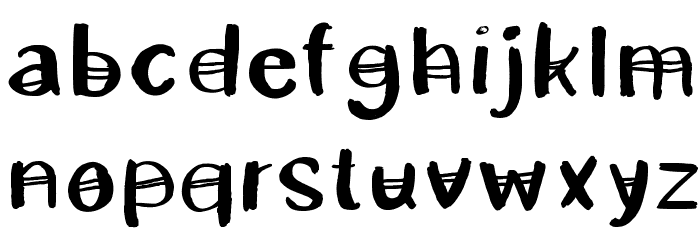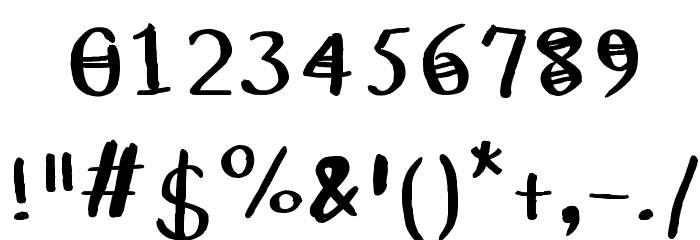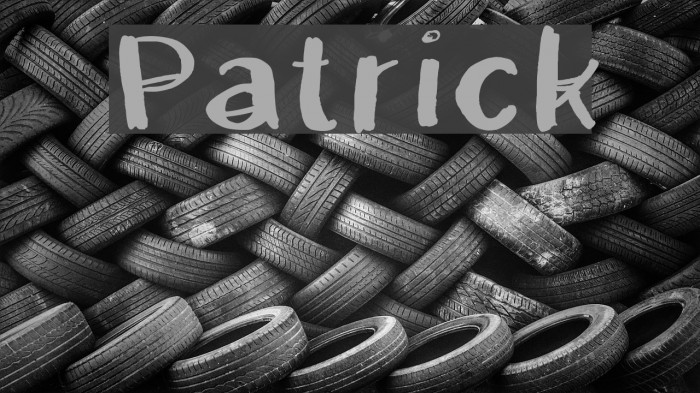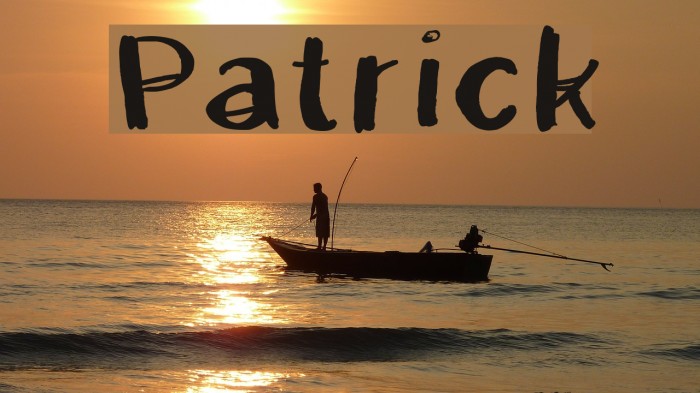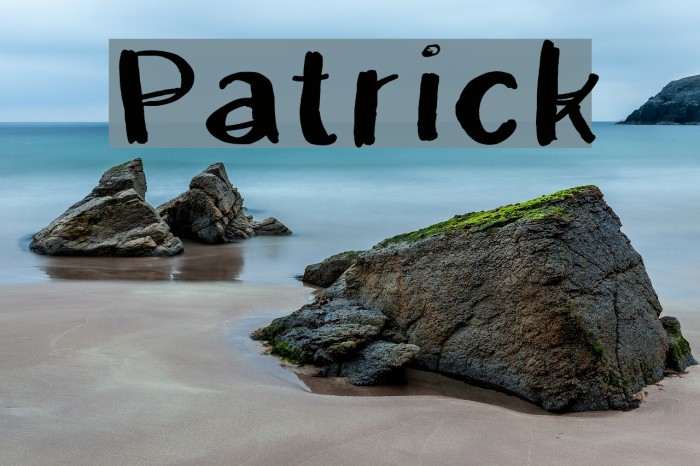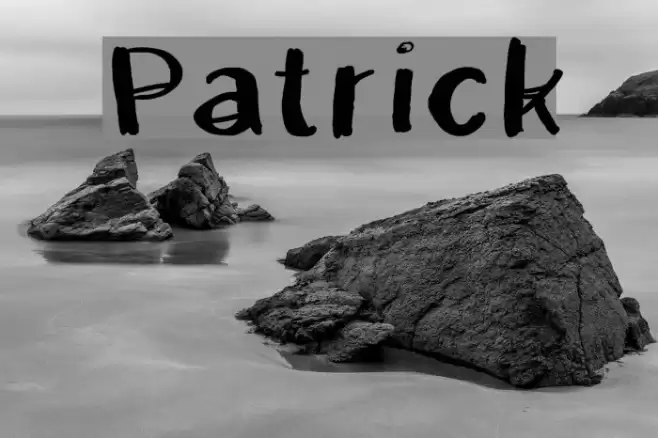
Patrick Font
This font features a playful and artistic style, characterized by its brush-like strokes and uneven edges. The letters exhibit a hand-drawn quality, with varying thicknesses that add a dynamic and lively feel. The uppercase letters are bold and expressive, while the lowercase letters maintain a consistent flow, enhancing readability. The numerals and special characters follow the same artistic theme, making them suitable for creative and informal designs. The overall appearance is casual yet impactful, perfect for projects that require a touch of personality and creativity.
A playful, brush-stroke font with a hand-drawn, artistic style.
- Proposed Projects: Ideal for greeting cards, children's books, artistic posters, and creative branding.
- Use Case: Headlines, Logos, Creative projects